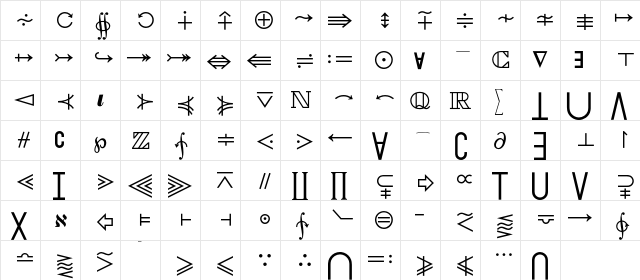
Mathematical Pi 2 BQ Regular
Design Context for Mathematical Pi 2 BQ Typeface
Mathematical Pi 2 BQ offers clean, dependable letterforms without strong stylistic allegiance, making it a practical choice for designers who need flexibility.
Pro Tip: Use Mathematical Pi 2 BQ in both headline and body roles to test its range before committing to a single application.